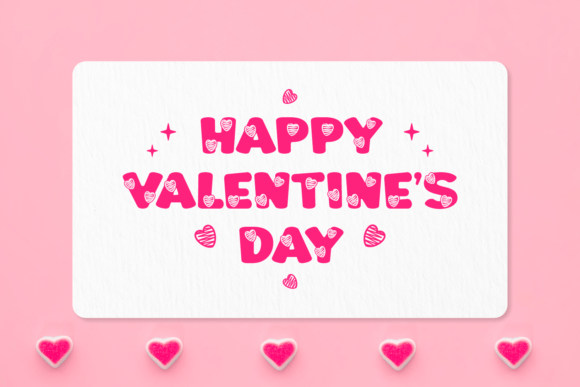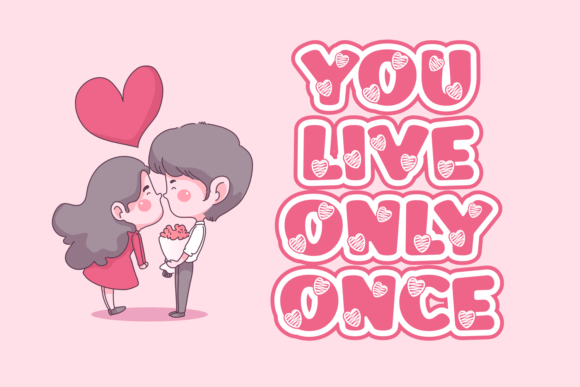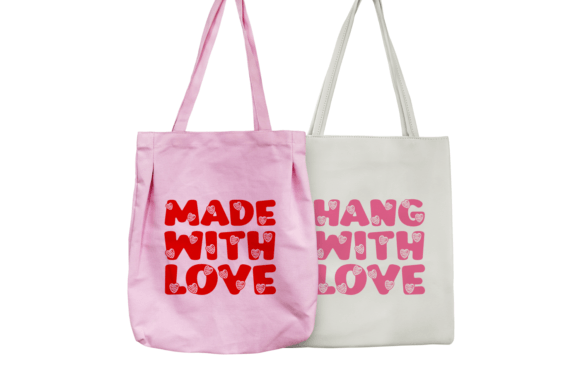
Introduction to Love No War Font
Love No War is a delightful decorative font adorned with charming hearts on each letter.
It’s a sweet and whimsical choice that adds a touch of love to your projects Perfect for expressing affection in your designs, this font brings a playful and heartwarming vibe.
Key Features of Love No War Font
Why Choose Love No War Font?